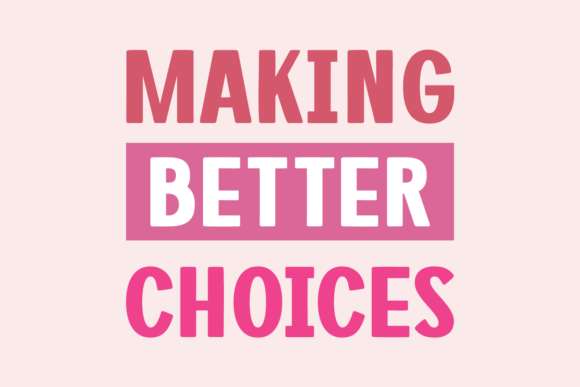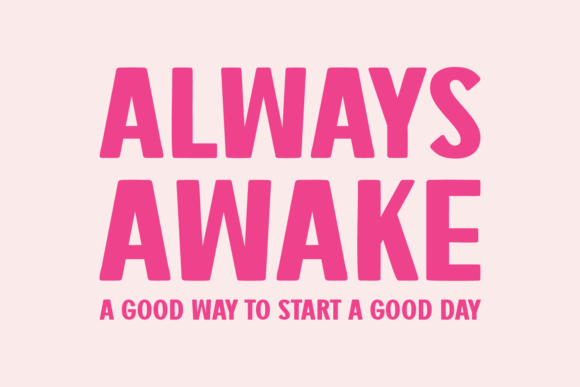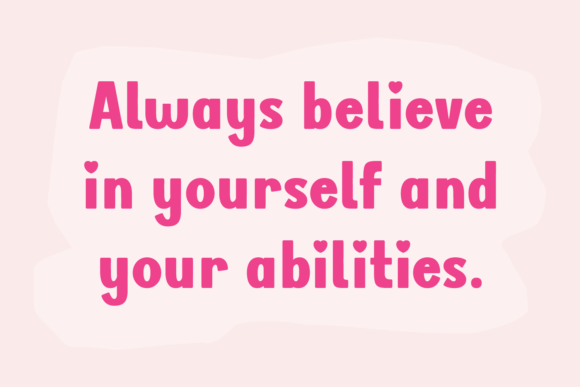
Unleash Your Creativity with Elite Girls Font: The Epitome of Chic and Sophistication
In the realm of typography, few fonts manage to strike a balance between style, versatility, and impact. Elite Girls Font, however, stands out as a beacon of chic and sophistication, effortlessly elevating your visual projects from mundane to magnificent. This bold and dynamic typeface is not just a font; it’s an experience, a statement that transforms your creative endeavors into powerful visual narratives.
Elite Girls Font is the perfect companion for designers and crafters looking to revamp their branding, make their social media channels pop, or design attractive prints. Its versatility is one of its most compelling attributes, allowing it to adapt seamlessly to various applications. Whether you’re creating eye-catching stickers, designing trendy shirts, or crafting captivating magazine layouts, Elite Girls brings your vision to life with an impressive effect.
Elite Girls Font beautifully transforming a design project into a powerful visual statement.
Shining in the Fashion Industry and Beyond
The fashion industry, known for its relentless pursuit of style and elegance, finds a perfect ally in Elite Girls Font. This font’s striking allure makes it an ideal choice for fashion magazines, book covers, and editorial designs where making a statement is paramount. Its unique charm and character saturation with affection not only illuminate your creative projects but also add a touch of love to every detail.
Why Choose Elite Girls Font?
- Bold and Dynamic: Elite Girls Font is designed to make an impact. Its bold and dynamic nature ensures your projects stand out in a crowded digital landscape.
- Versatile Application: From digital platforms like social media and websites to print materials such as stickers, shirts, and magazines, this font adapts effortlessly.
- Saturated with Affection: The font brings a unique touch of love and care to your designs, making them more engaging and personal.
- Perfect for Creative Projects: Whether you’re a professional designer or a DIY crafter, Elite Girls Font is a valuable asset in your creative toolkit.
Tips for Using Elite Girls Font
To truly harness the power of Elite Girls Font, consider the following tips:
- Mix and Match: Don’t be afraid to experiment with different sizes, colors, and styles to create visual hierarchy and interest.
- Pair with Simplicity: Elite Girls Font shines brightest when paired with simpler fonts. This contrast enhances readability and impact.
- Consider Your Audience: Tailor your use of Elite Girls Font to resonate with your target audience, adjusting tone and style as needed.
Elite Girls Font is more than just a typeface; it’s a creative partner that brings your projects to life with its bold, dynamic, and affectionate style. Whether you’re aiming to elevate your brand, create stunning visual content, or simply add a touch of elegance to your designs, Elite Girls is the perfect choice. Revel in the echelon of chic with Elite Girls Font and transform your creative endeavors into powerful statements that resonate with your audience.
Unlock the full potential of your designs with Elite Girls Font. Experience the blend of style, versatility, and affection in every project you undertake.